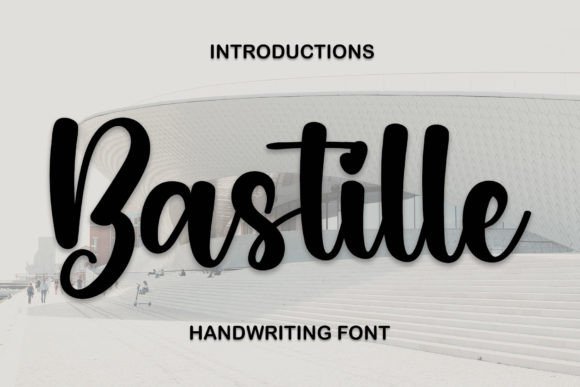
Welcome to the world of Bastille, a contemporary calligraphic font that evokes the mystique of hand-crafted artistry. Designed by the visionary YanStudio, this script font is a blend of elegance and modernity. With its fluid strokes and impeccable form, Bastille exudes a timeless charm that will captivate your audience.
As a script font, Bastille possesses an organic, hand-drawn quality that adds a touch of warmth and personality to your designs. Whether you're creating a Halloween sign, designing a wedding invitation, or crafting a captivating logo, Bastille's unique charm will make your creations stand out.
Step into the realm of visual storytelling with Bastille, a font that breathes life into your projects. Its balanced and varied characters dance gracefully across the page, creating a visual feast for the eyes. From personal invitations to professional marketing materials, Bastille adapts seamlessly to a myriad of applications.
With Bastille, your creative endeavors will transcend the ordinary and enter the extraordinary. Its intuitive design makes it a joy to use, allowing you to focus on your vision without hindrance. Explore the endless possibilities of this contemporary masterpiece and let your creativity soar.
Unleash the power of Bastille, the ultimate font for creating memorable and impactful designs. Its timeless appeal and versatility make it an indispensable tool for any creative professional. Elevate your projects to new heights of sophistication and originality with Bastille.